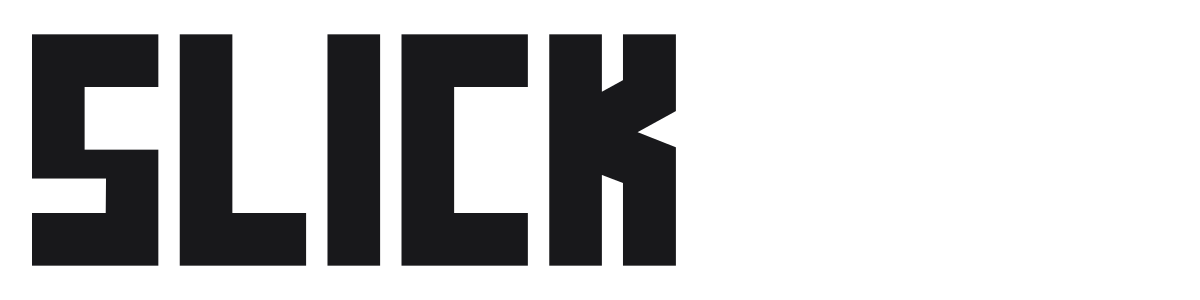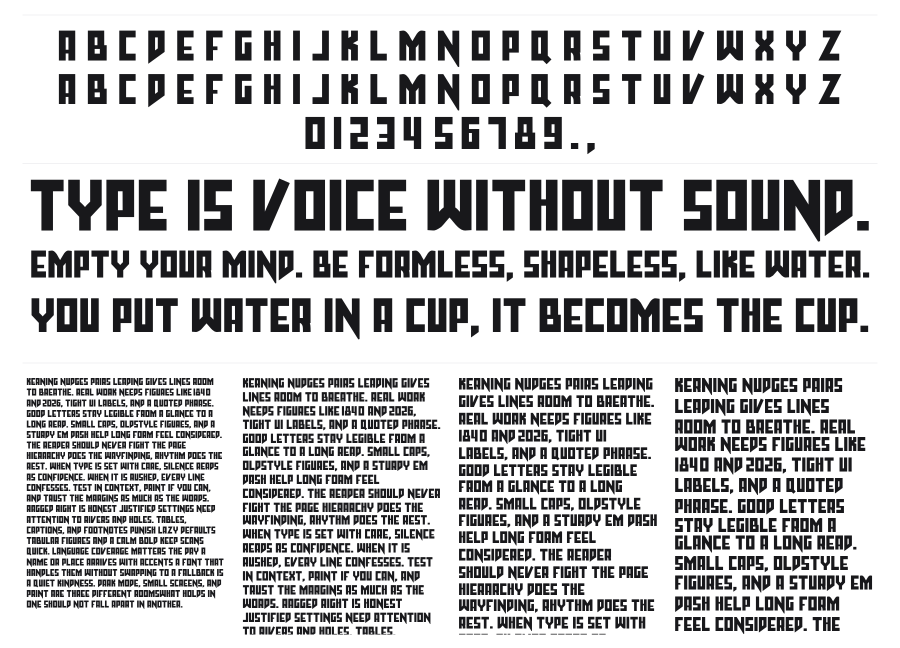
Slick
Slick is a heavy condensed display font with a constructivist DNA, built from tight rectangular forms and angular terminal cuts. The bold, blocky structure recalls Soviet-era propaganda lettering and industrial signage, with diagonal slices that inject raw energy into the rigid geometry. It hits hard at large sizes and carries real attitude in headlines, posters, and identity work that wants to make noise.